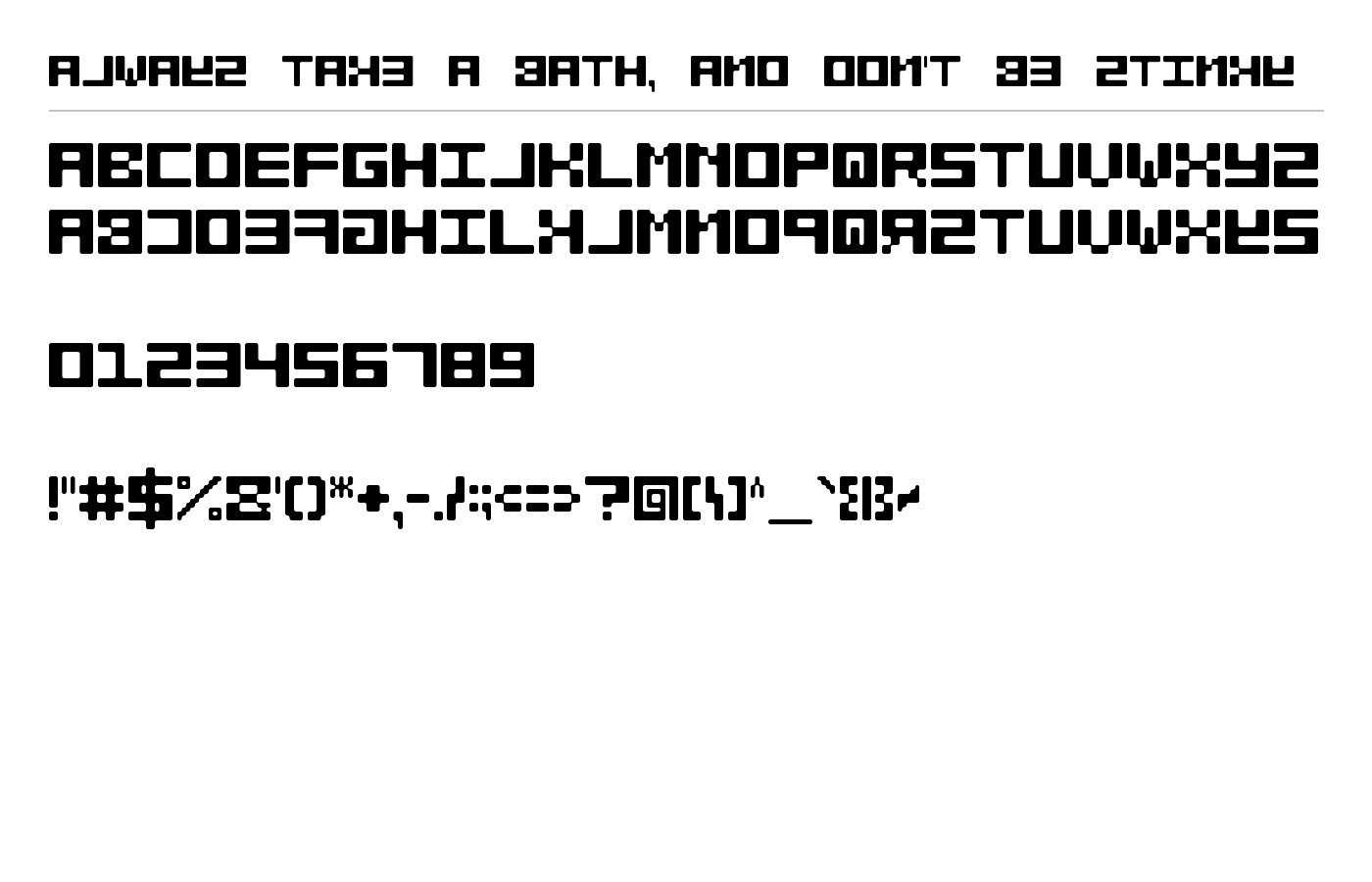
"Always take a bath, and don't be stinky" is a bold, blocky sans serif font with a futuristic, digital vibe. Its heavy weight, squared shapes, and uniform stroke contrast give it a tech-inspired, mechanical feel, making it perfect for eye-catching headlines, logos, or designs that want to convey strength and modernity with a bit of playful edge. This font works best in creative branding, posters, and projects seeking a strong, unconventional look.
Always take a bath, and don't be stinky Font
About Always take a bath, and don't be stinky Font
| Font family | Always take a bath, and don't be stinky Font |
| Designer | Mattheas |